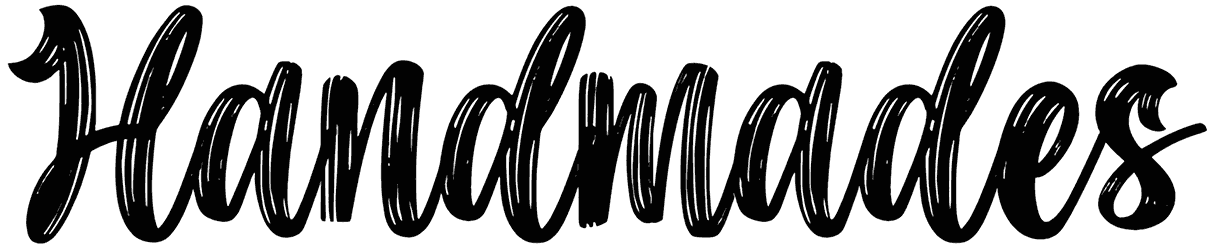
Handmades Font
Let us show you how to opt for a much more artistic display of your text message using nothing but a brush font, as Handmades here make things right. The fact that you can see the marks left by the brush somehow makes things a lot more intimate.
Get this cursive font not just because of its smooth decorative touch, but because of how well it can reach out to your targets as a camping poster, organic drink labels, etc.